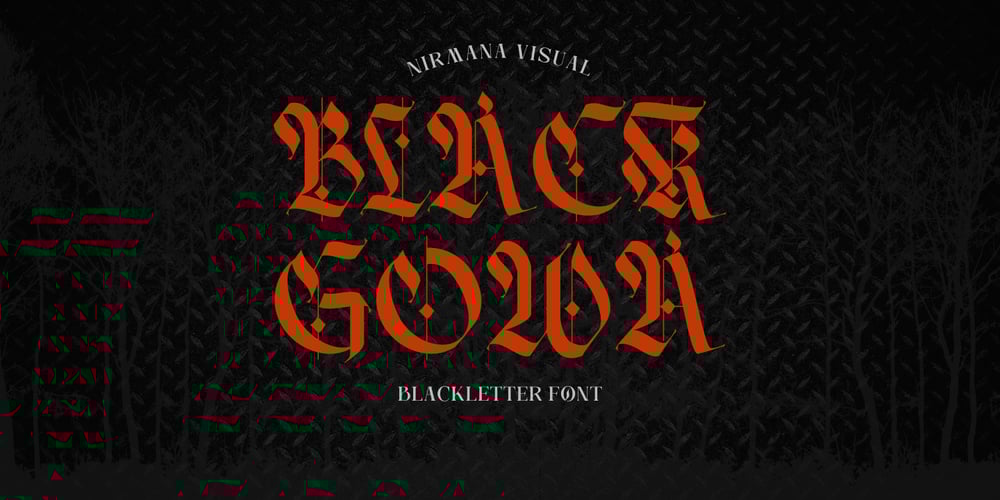
Black Gowa
Black Gowa font
Black Gowa Font Family was designed by Sigit Dwipa and published by Nirmana Visual. Black Gowa contains 1 styles and family package options. Black Gowa offers beautiful typographic harmony for a diversity of design projects, including logos & branding, social media posts, advertisements & product designs.